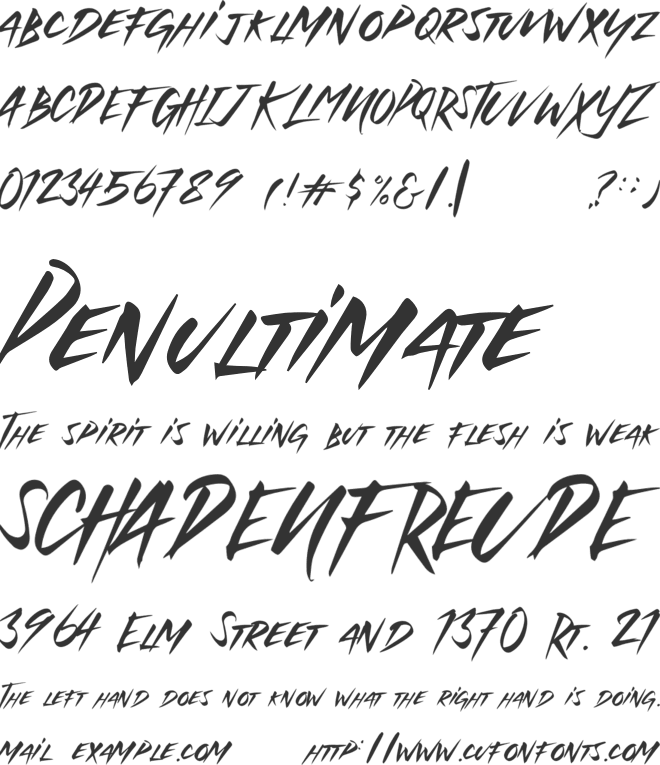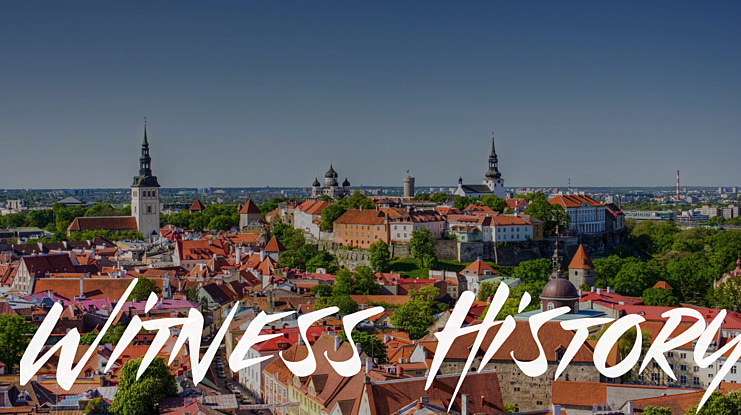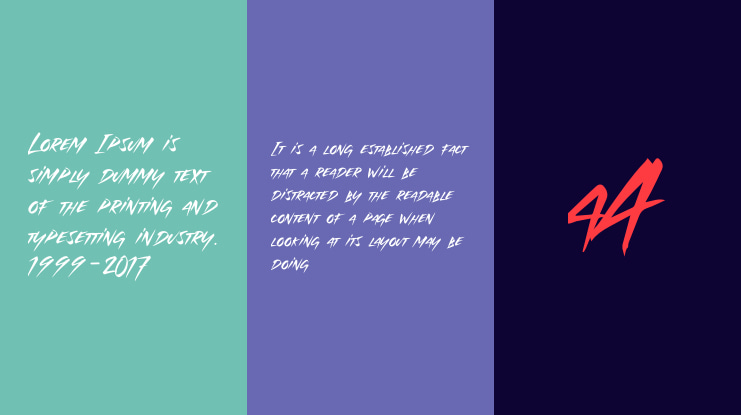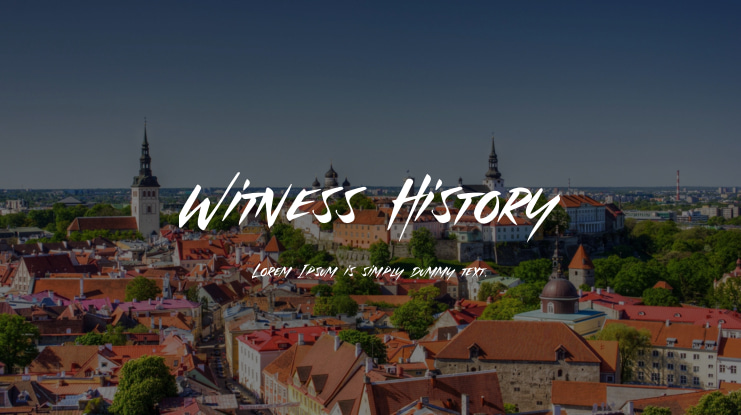
Witness History Font
Witness History is a modern style brush typeface with dramatic look & feel, comes with uppercase, lowercase, numerals, and punctuation. This font will be perfect pick for various designs & artworks like social media post, brand type, posters, merchandise, packaging, headlines, merchandises, t-shirt, and many more..
Features:
-Uppercase Letters
-Lowercase alternative Letters
-Numbers and Punctuation